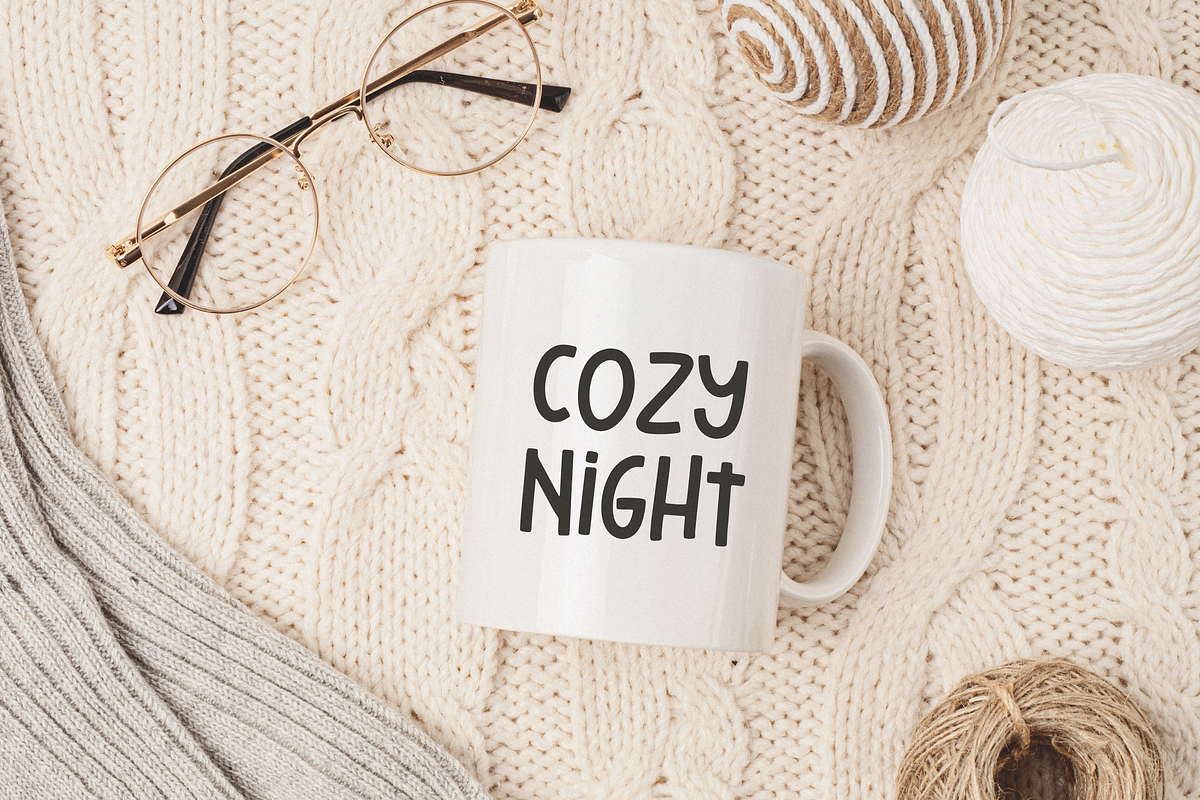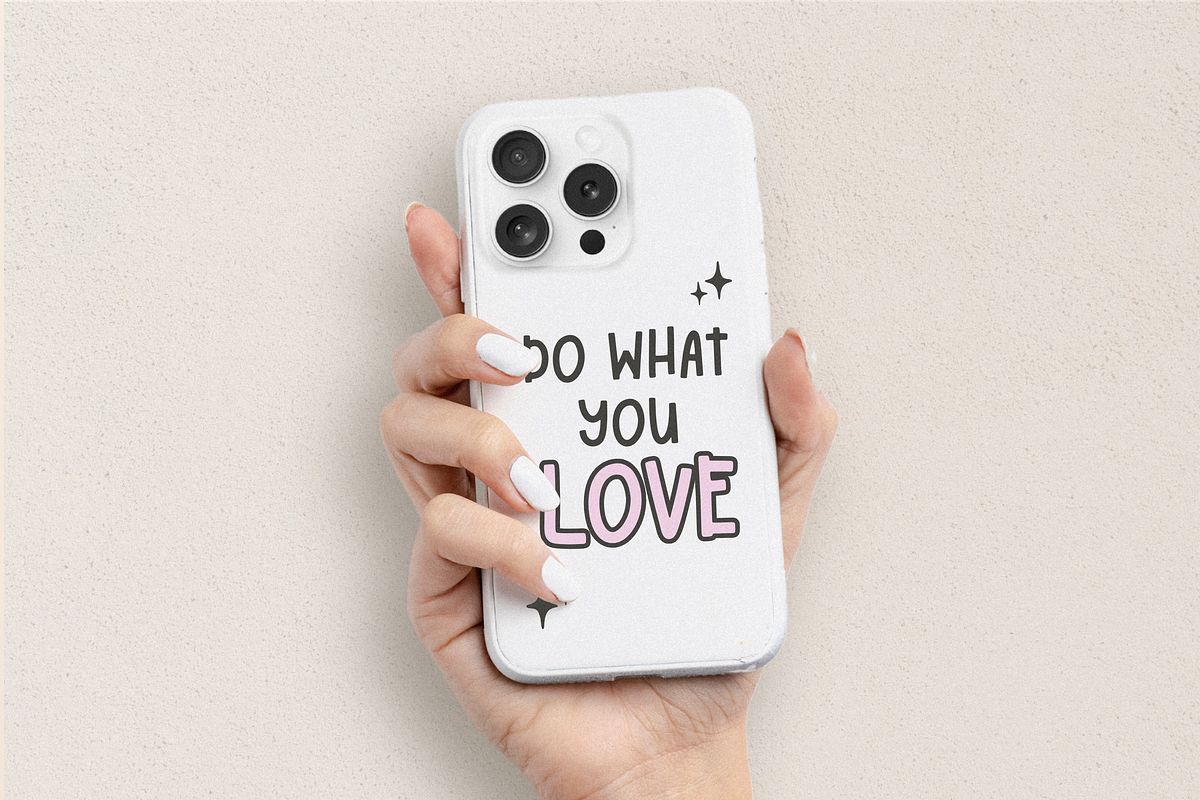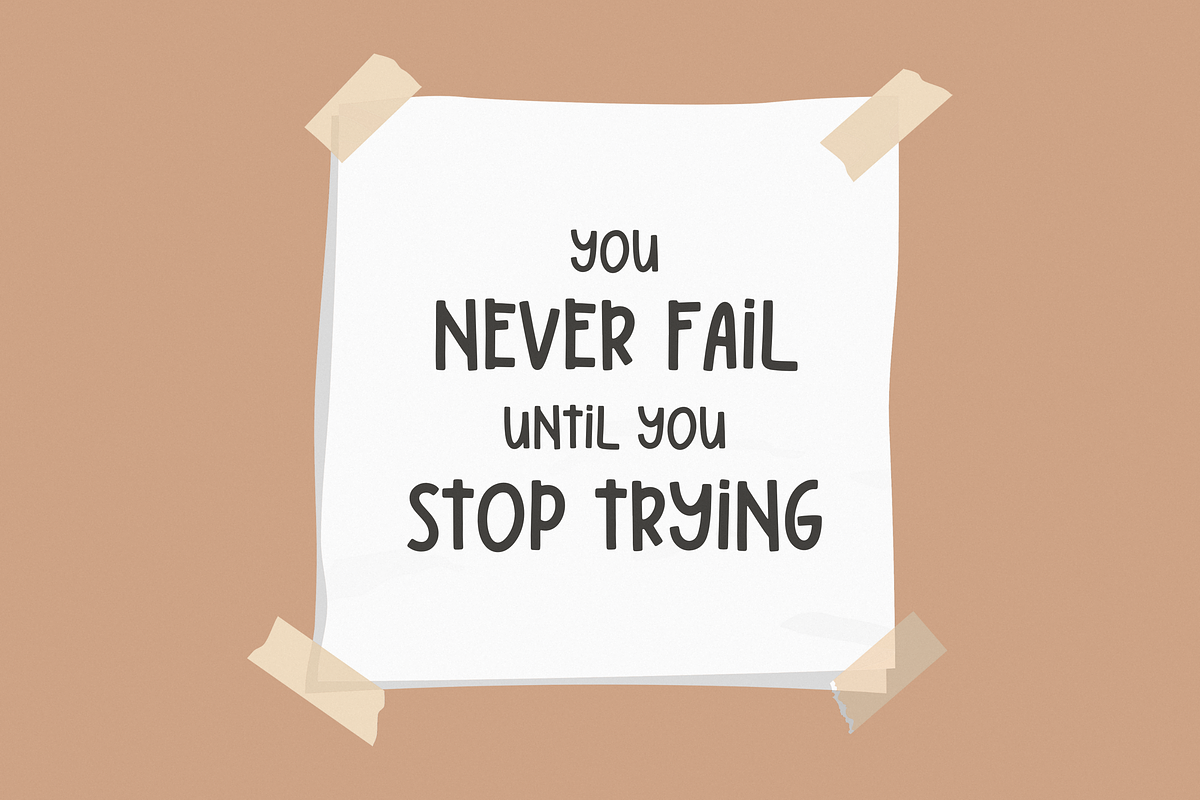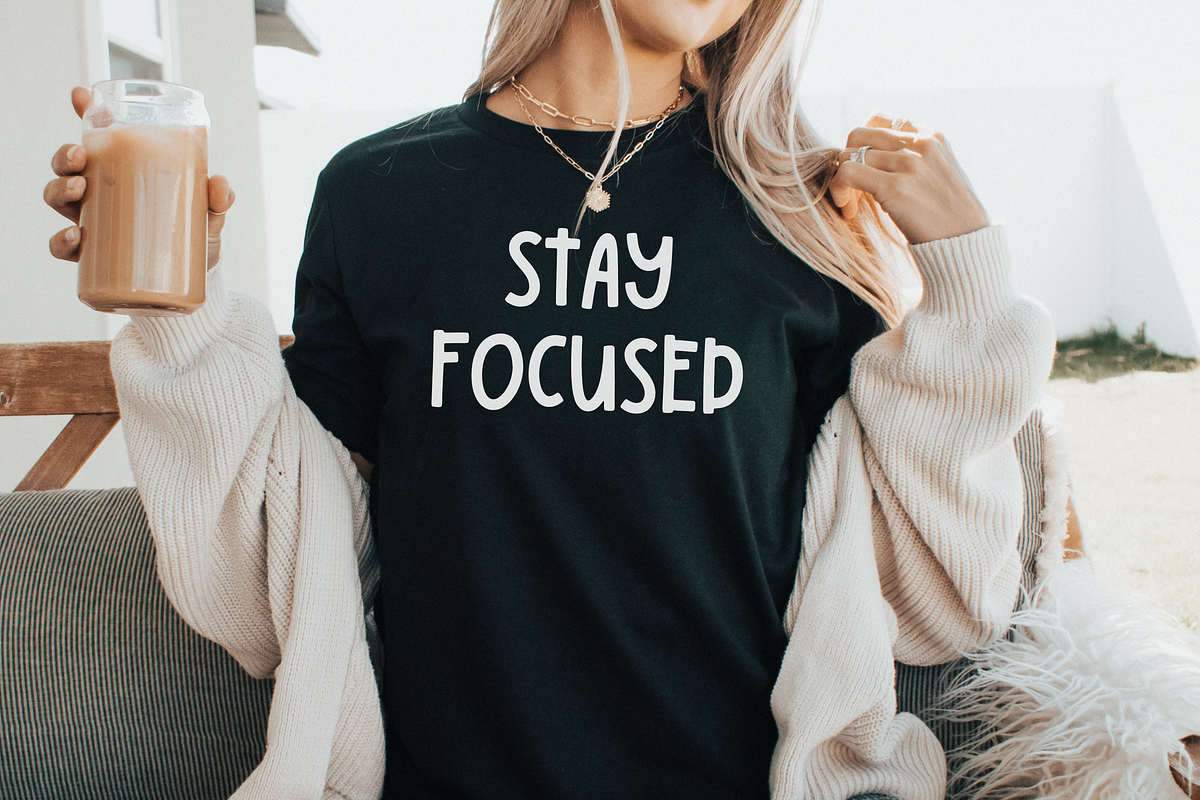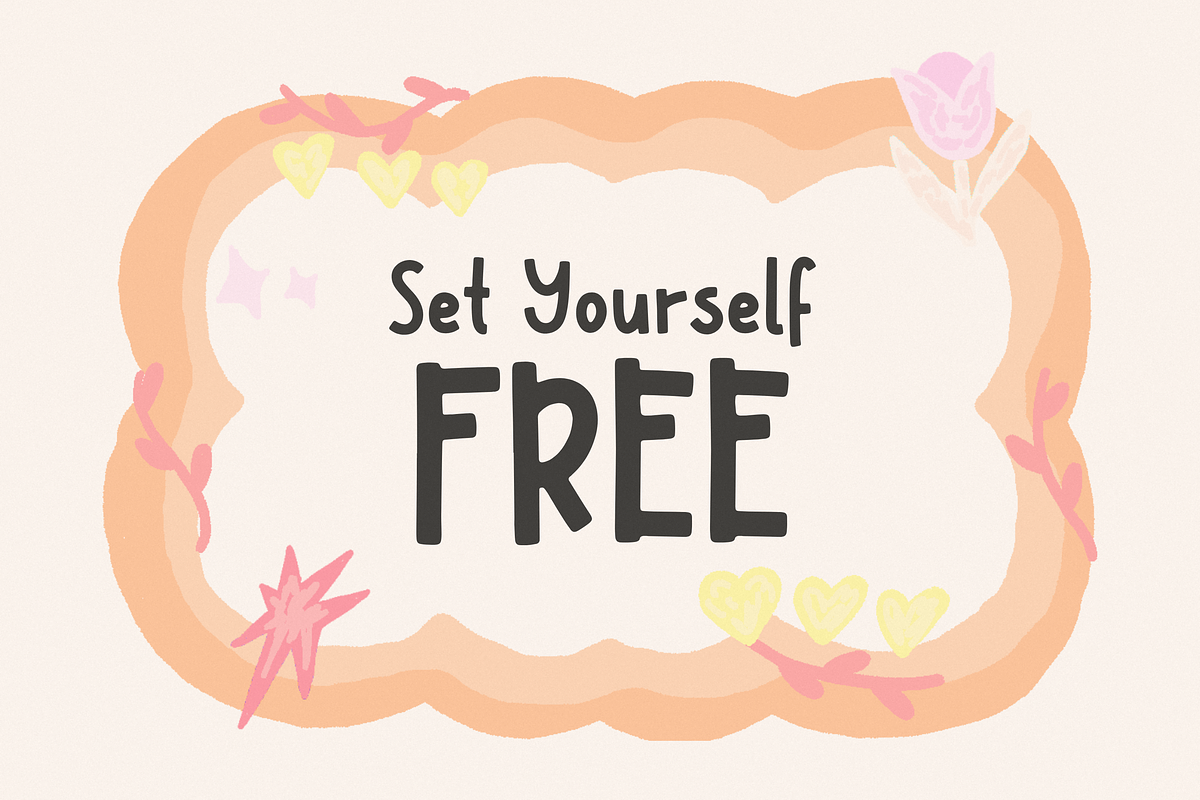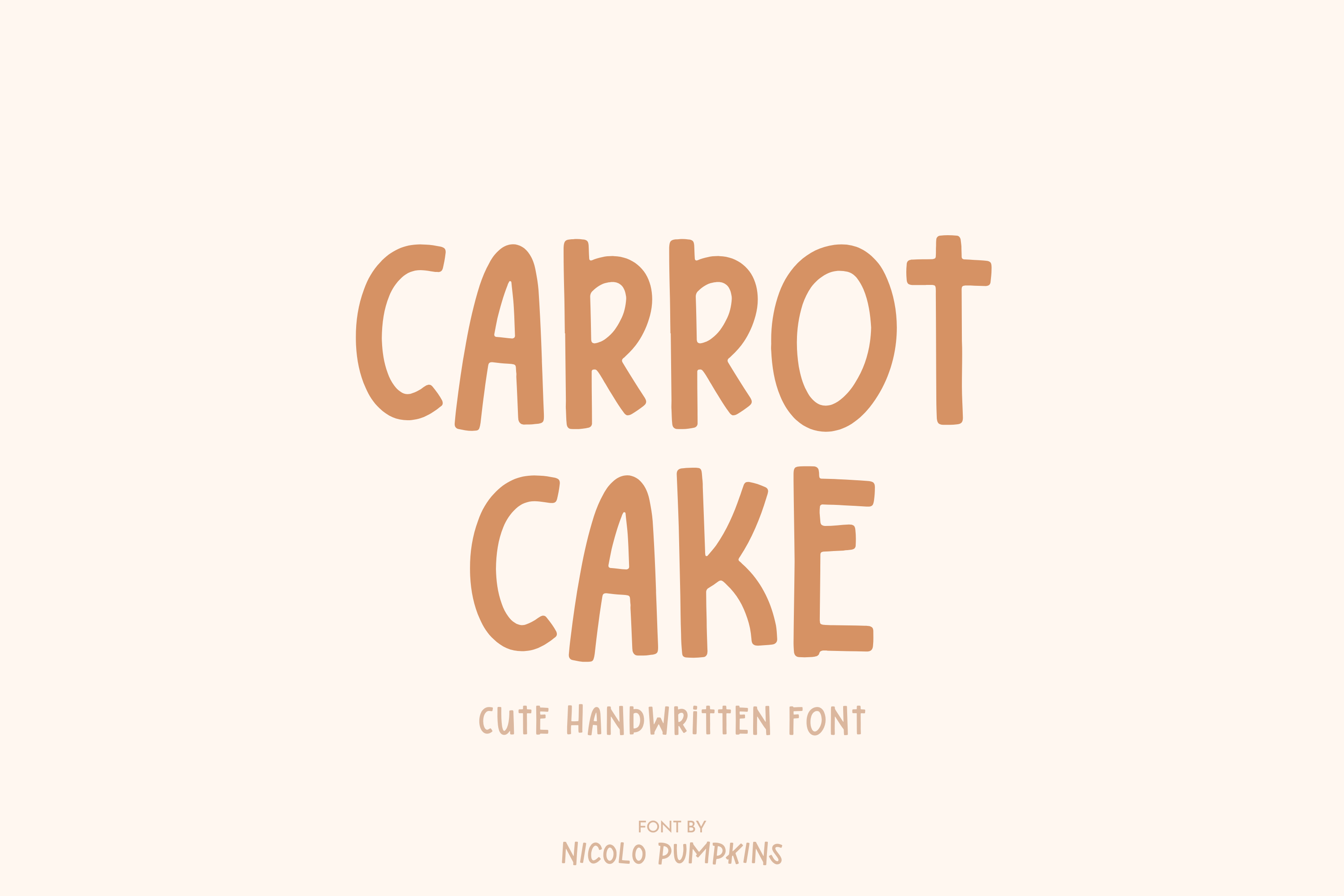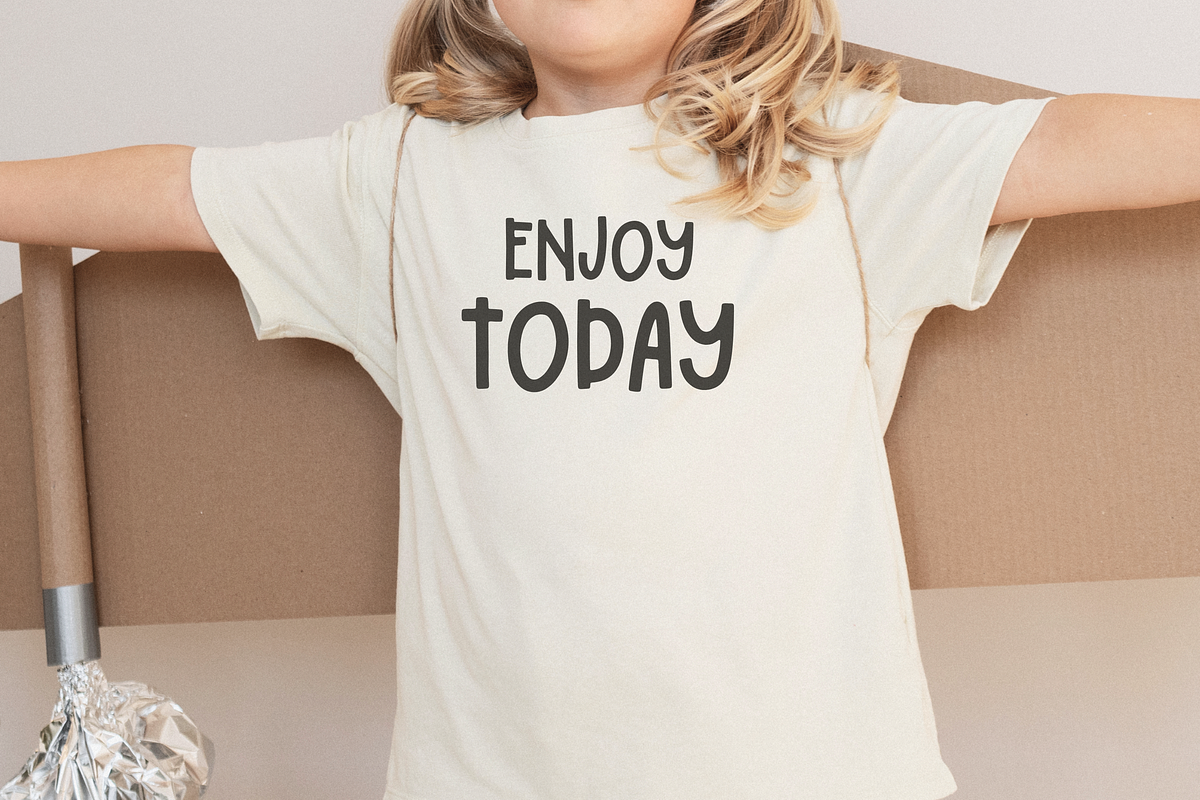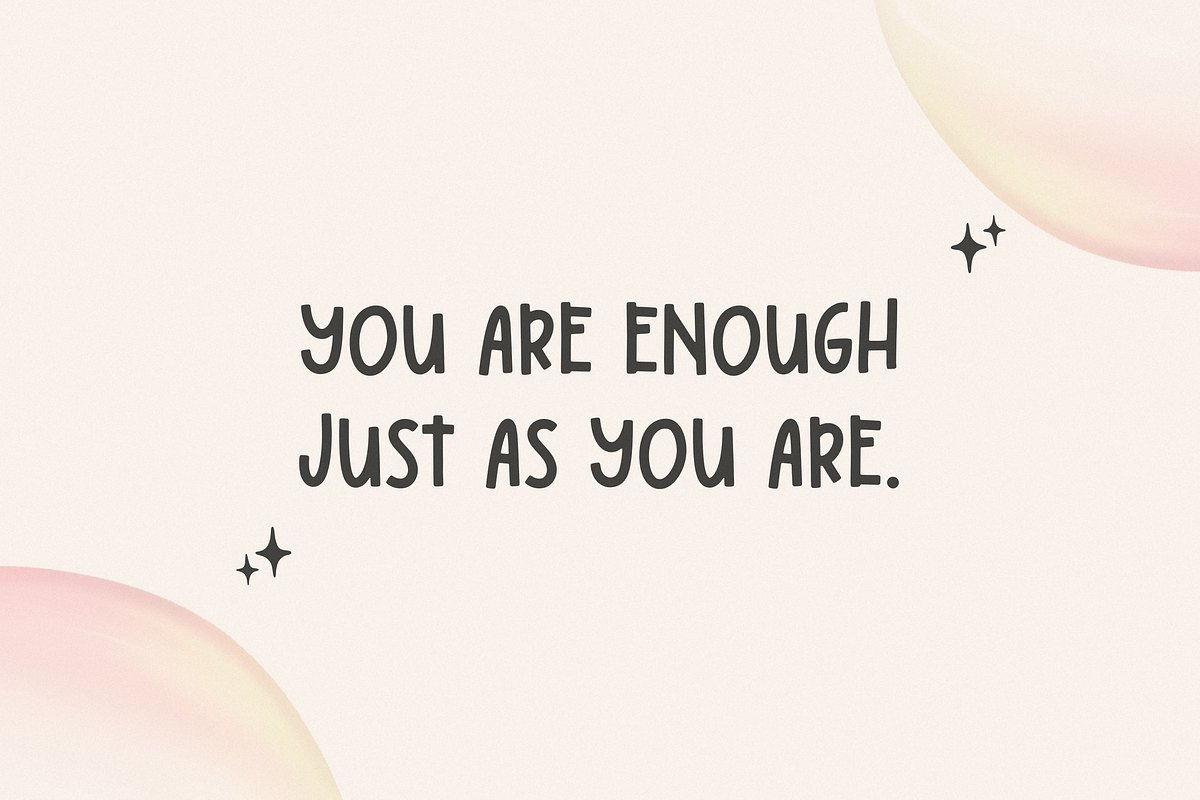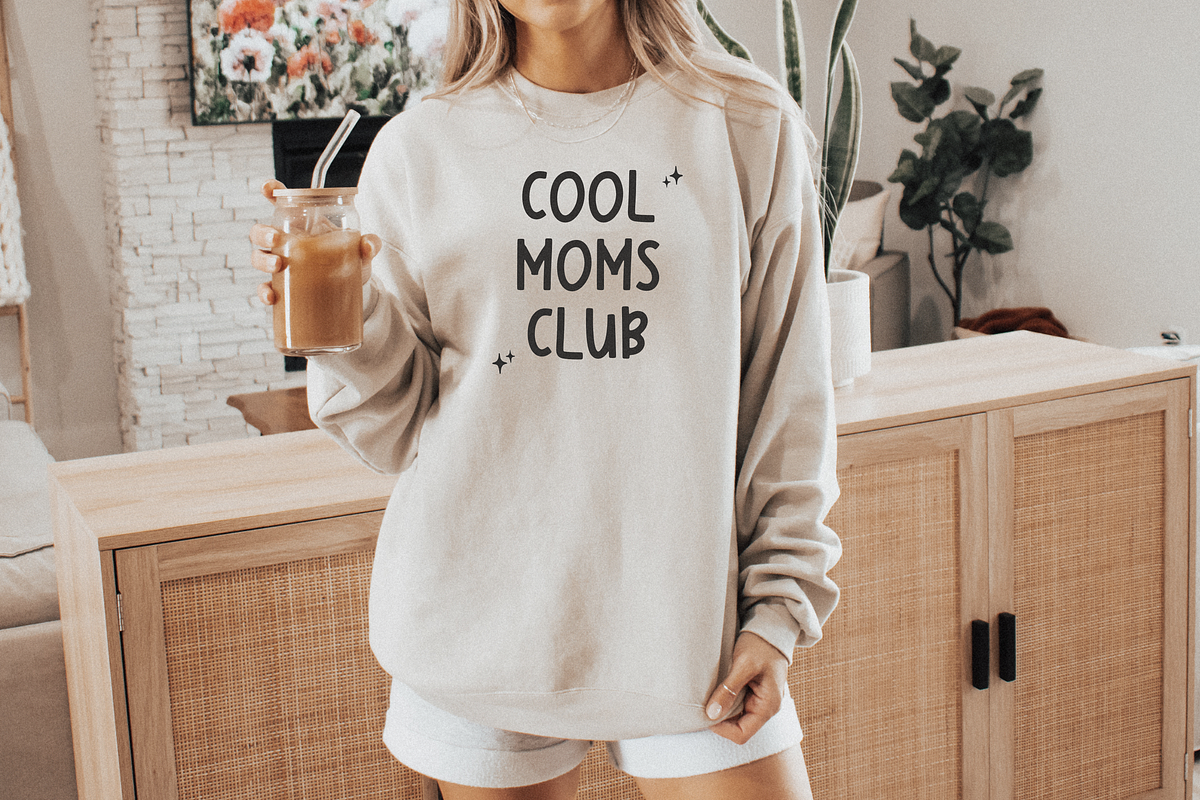
CARROT CAKE Font
CARROT CAKE FONT A cute handwritten font with playful style.
✦ CARROT CAKE FONT is perfect for: digital note taking on digital planner, shirts, mugs, invitations, greeting cards, Procreate, and more!